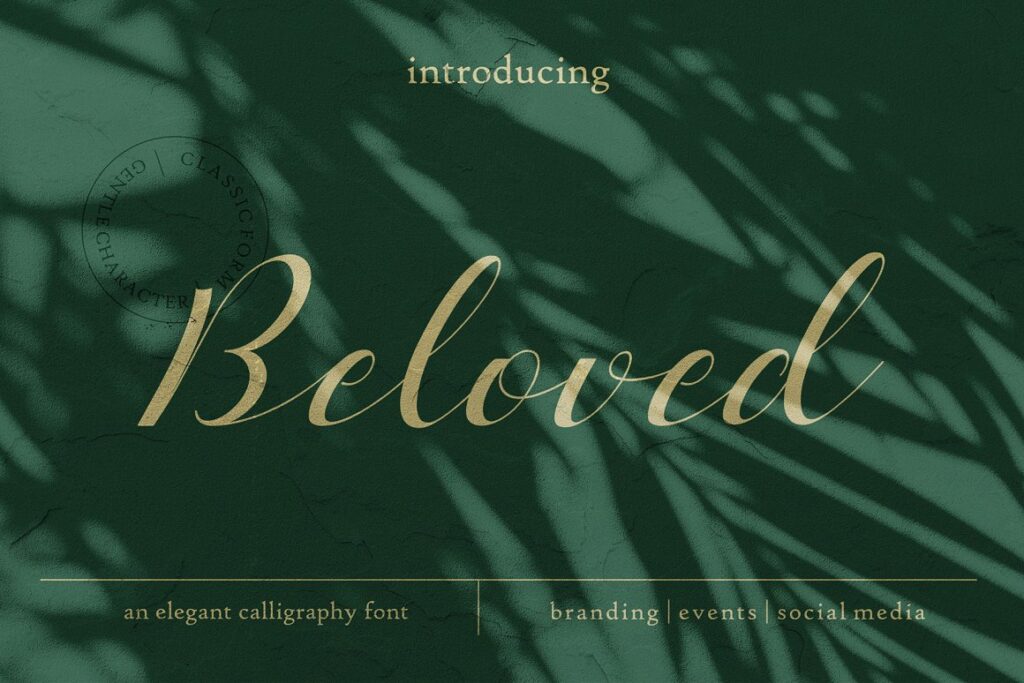
Beloved – script font with a romantic fresh ring to it. You can use it for your logo projects. It is ideal for catchy headings, apparel design, gift cards, wedding invitations etc.